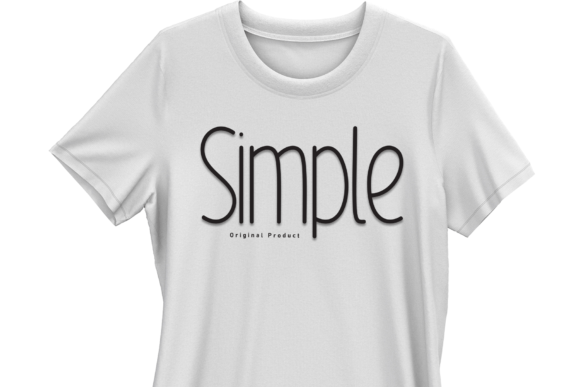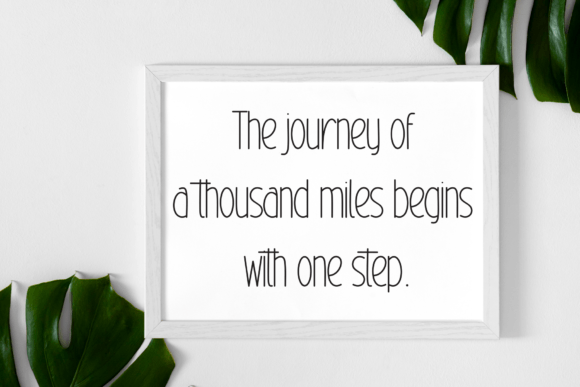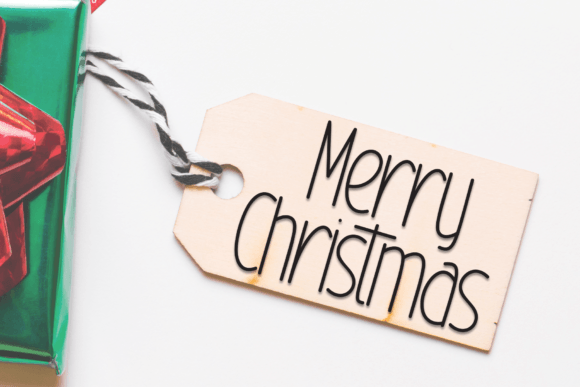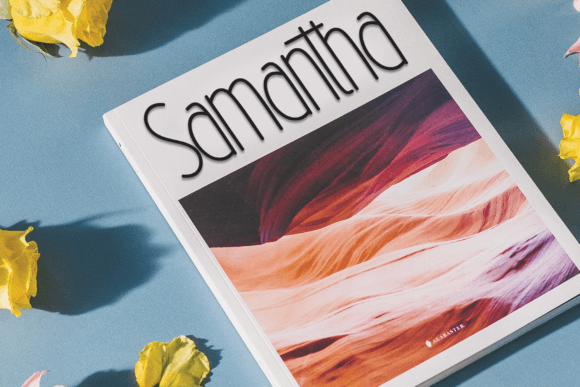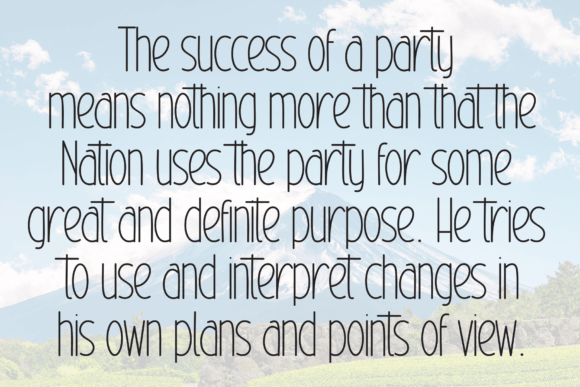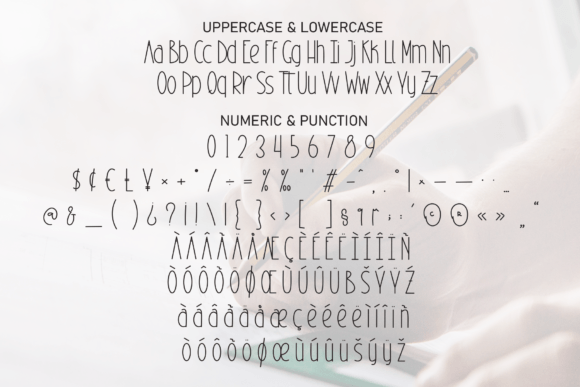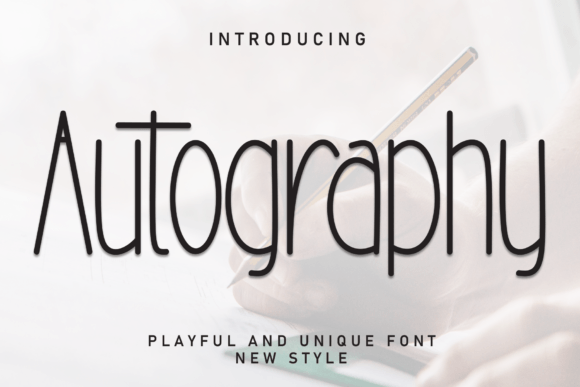
Introducing Autography Font: The Perfect Blend of Casual and Friendly
In the world of typography, fonts play a crucial role in conveying the tone and personality of a design. For designers and crafters looking for a font that exudes a relaxed and friendly vibe, Autography is an excellent choice. This casual handwritten font is designed to capture the essence of natural, flowing strokes, making it ideal for personal projects, social media, and invitations.
The Charm of Autography Font
Autography font is all about effortless charm. Its easygoing style adds warmth and authenticity to any design, making it perfect for those who want to create a personal connection with their audience. Whether you’re working on a personal project, creating social media content, or designing invitations, Autography brings a touch of friendliness and approachability that’s hard to resist.
Key Features of Autography Font
- Casual and Handwritten: Autography’s casual, handwritten style gives it a unique and personal touch.
- Natural and Flowing Strokes: The font’s natural, flowing strokes create a sense of movement and fluidity.
- Relaxed and Friendly Vibe: Autography’s relaxed and friendly vibe makes it perfect for designs that require a personal touch.
- Effortless and Charming: The font’s effortless style adds a charming touch to any design.
Uses of Autography Font
Autography font is versatile and can be used in various design projects, including:
- Personal Projects: Use Autography to add a personal touch to your personal projects, such as journals, planners, and scrapbooks.
- Social Media: Autography is perfect for social media content, including Instagram posts, Facebook updates, and Twitter tweets.
- Invitations: Add a touch of warmth and authenticity to your invitations, whether it’s for a birthday party, wedding, or baby shower.
- Branding: Use Autography to create a friendly and approachable brand identity.
Benefits of Using Autography Font
Using Autography font in your designs comes with several benefits, including:
- Unique and Personal Touch: Autography’s handwritten style gives your designs a unique and personal touch.
- Emotional Connection: The font’s friendly and approachable vibe helps create an emotional connection with your audience.
- Versatility: Autography can be used in various design projects, from personal to commercial.
- Ease of Use: The font is easy to read and works well in both digital and print formats.
Tips for Using Autography Font
To get the most out of Autography font, here are some tips to keep in mind:
- Pair with Other Fonts: Pair Autography with other fonts to create a unique and visually appealing design.
- Use in Combination with Images: Use Autography in combination with images to add a personal touch to your designs.
- Keep it Simple: Keep your design simple and clean to let Autography’s charm shine through.
Autography font is a casual handwritten font that captures a relaxed and friendly vibe with its natural, flowing strokes. Ideal for personal projects, social media, and invitations, it brings an effortless, charming touch to any design. With its unique and personal touch, Autography is perfect for designers and crafters looking to add warmth and authenticity to their designs. Try Autography today and experience the power of friendly and approachable typography.